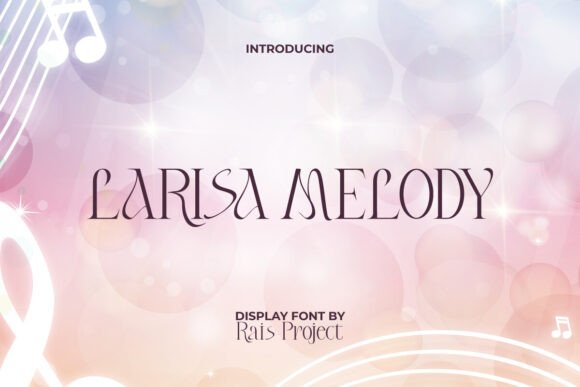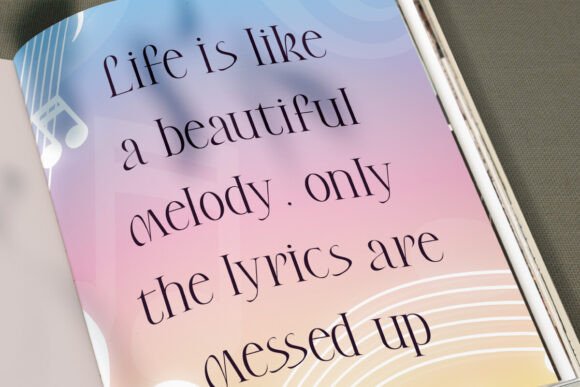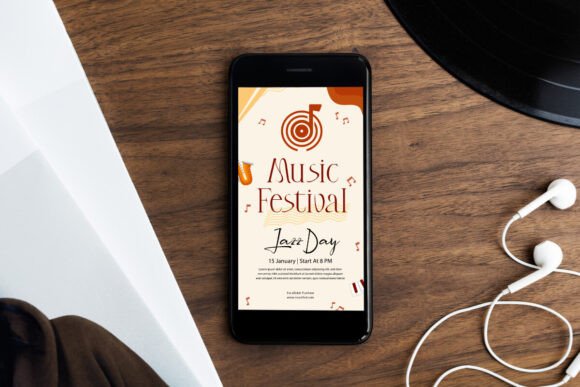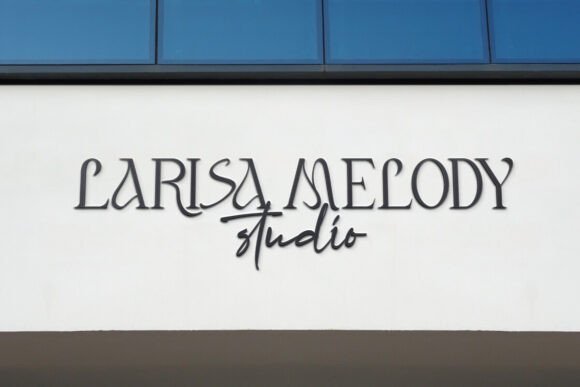
Larisa Melody Font
About the Larisa Melody Font
Introducing the Larisa Melody Font, a beautifully crafted typeface designed to elevate your creative projects. Larisa Melody Font is a uniquely beautiful artistic serif display font. This font has thin characters with beautiful wave lines like a flowing melody. It will be good for any designs, such as album cover, brand image, custom design, flyer, invitation, label, magazine cover, marketing material, menu, poster, product packaging, quote, signage, stationery, website page, and more!
Larisa Melody’s flowing, thin serifs make it ideal for headlines, short text blocks on posters or invitations, and branding applications where a touch of elegance and sophistication is desired. It excels in creating a sense of movement and artistic flair, perfect for projects related to music, fashion, or the arts. However, its thin strokes and intricate details make it unsuitable for body copy or UI elements where readability is paramount.
Its delicate nature benefits from pairings that provide a counterpoint. A strong, geometric sans-serif like Bebas Neue can offer stability and modern contrast, while a classic serif such as Garamond can create a more traditional, luxurious feel. For a softer contrast, consider pairing it with a script font like Great Vibes, maintaining a sense of fluidity but adding a different textural quality.
The overall personality of Larisa Melody is elegant and graceful, conveying a sense of refinement and artistic sensibility. It’s best suited for brands aiming for a sophisticated, feminine, or creatively expressive image.
Larisa Melody Font Example